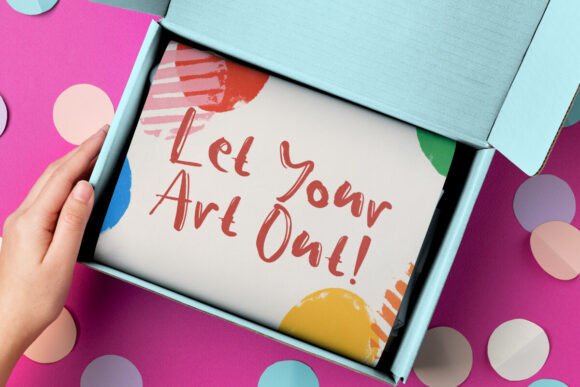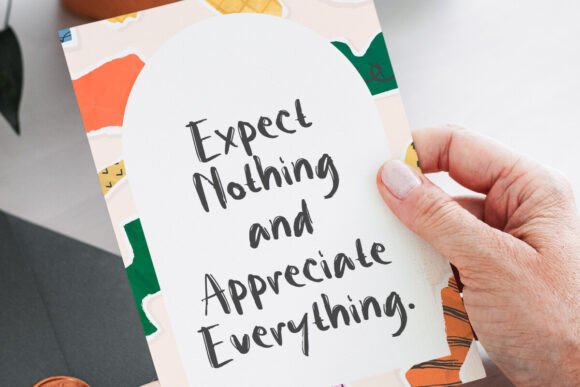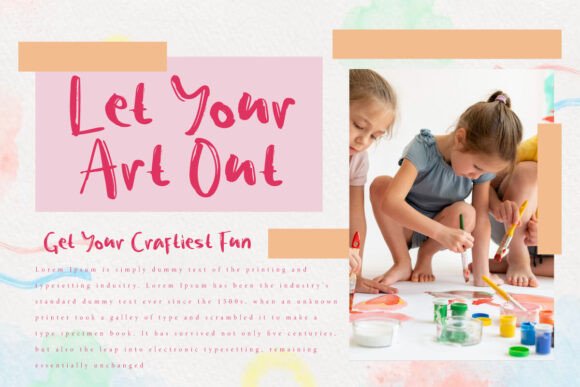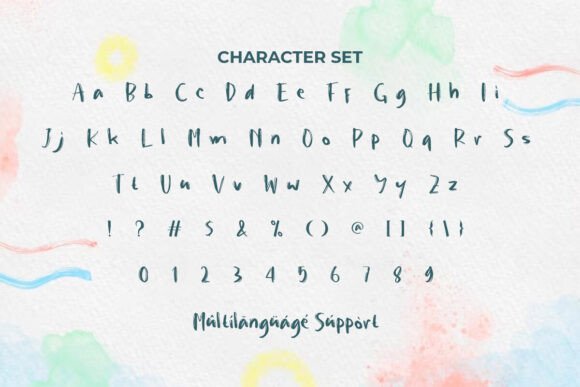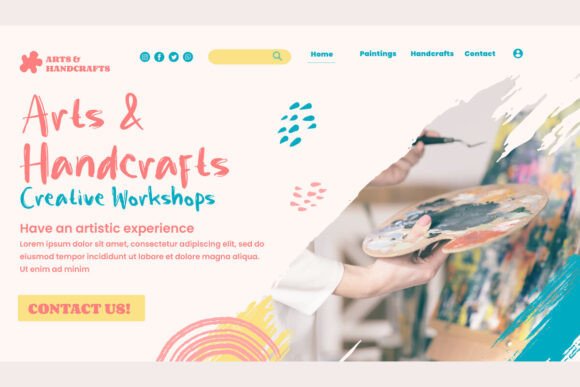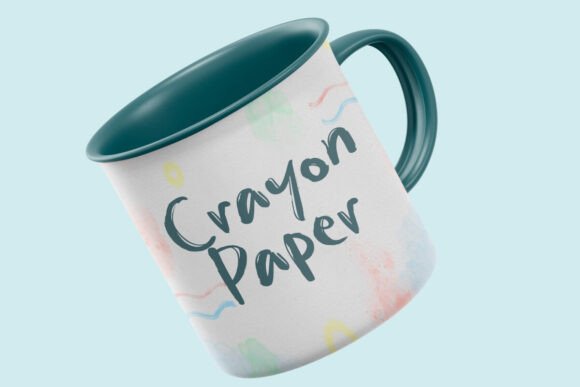
Crayon Paper Font: Unleash Your Creativity with this Playful Sketch Brush Display Font
Are you tired of using the same old fonts for your designs? Look no further! Crayon Paper Font is here to add a splash of fun and excitement to your creative projects. This exhilarating, playful sketch brush display font is perfect for designers and crafters who want to inject a dose of energy and playfulness into their work.
What is Crayon Paper Font?
Crayon Paper Font is a unique and vibrant font that mimics the look of crayon drawings on paper. Its irregular lines, uneven strokes, and whimsical feel make it an ideal choice for designs that require a personal touch. This font is perfect for anyone who wants to add a dash of creativity and imagination to their work.
Key Features of Crayon Paper Font
- Playful and Fun Theme: Crayon Paper Font has a fun and playful theme that can add excitement to any design.
- Sketch Brush Display Font: This font has a sketch brush display style that gives it a hand-drawn, artistic feel.
- Exciting Energy: Crayon Paper Font can infuse your designs with an energetic and lively vibe that grabs attention.
- Versatile: This font is suitable for a wide range of designs, including advertisements, brand images, business cards, covers, custom designs, invitations, labels, menus, posters, product packaging, quotes, website pages, and more!
Uses of Crayon Paper Font
Crayon Paper Font is an incredibly versatile font that can be used in various design projects. Here are some ideas to get you started:
- Advertisements: Add a playful touch to your ads with Crayon Paper Font and make them stand out.
- Brand Image: Use this font to create a fun and youthful brand image that resonates with your target audience.
- Business Cards: Create memorable business cards with Crayon Paper Font and make a lasting impression.
- Covers and Custom Designs: Use this font to design eye-catching covers and custom designs for books, magazines, or any other publication.
- Invitations and Labels: Add a personal touch to your invitations and labels with Crayon Paper Font.
- Menus and Posters: Create visually appealing menus and posters with this font and grab attention.
- Product Packaging: Use Crayon Paper Font to design unique and playful product packaging that stands out on store shelves.
- Quotes and Website Pages: Add a touch of creativity to your quotes and website pages with this font.
Benefits of Using Crayon Paper Font
Using Crayon Paper Font in your designs offers several benefits, including:
- Unique and Creative Look: This font adds a fresh and creative touch to your designs.
- Attention-Grabbing: Crayon Paper Font is sure to grab attention and make your designs stand out.
- Fun and Playful Theme: This font infuses your designs with a fun and playful theme that resonates with your audience.
- Easy to Read: Despite its playful style, Crayon Paper Font is easy to read and understand.
Tips for Using Crayon Paper Font
Here are some tips for using Crayon Paper Font effectively in your designs:
- Use it for Headings and Titles: Crayon Paper Font is perfect for headings and titles, where you want to make a bold statement.
- Pair it with Other Fonts: Experiment with pairing Crayon Paper Font with other fonts to create a unique and visually appealing design.
- Adjust Font Size and Color: Adjust the font size and color to suit your design and make it more impactful.
Crayon Paper Font is an exciting and playful sketch brush display font that can add a fresh and creative touch to your designs. Its unique and energetic style makes it perfect for a wide range of design projects, from advertisements and brand images to business cards and product packaging. With its versatility, attention-grabbing style, and ease of use, Crayon Paper Font is a must-have font for designers and crafters who want to unleash their creativity and take their designs to the next level.